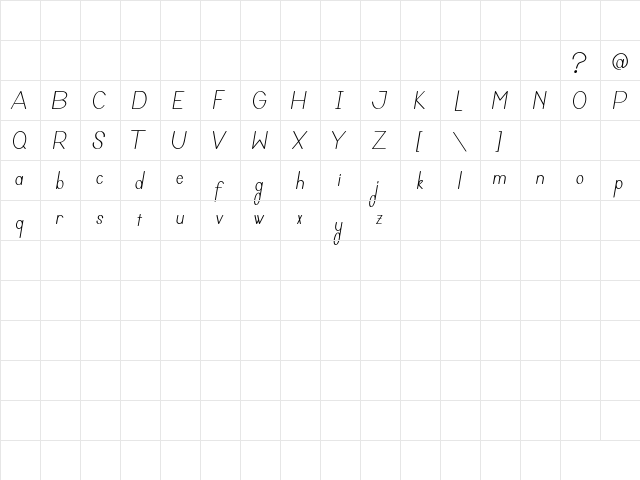
Qing Regular Font Preview
Qing Regular
Qing Regular Font Details
Design Context for Qing Typeface
Qing takes a measured approach to typography — its balanced proportions and neutral character make it a reliable workhorse for both digital and print work.